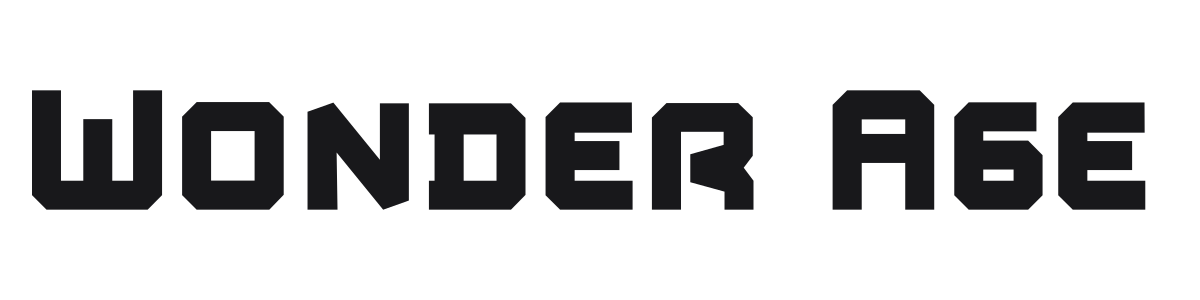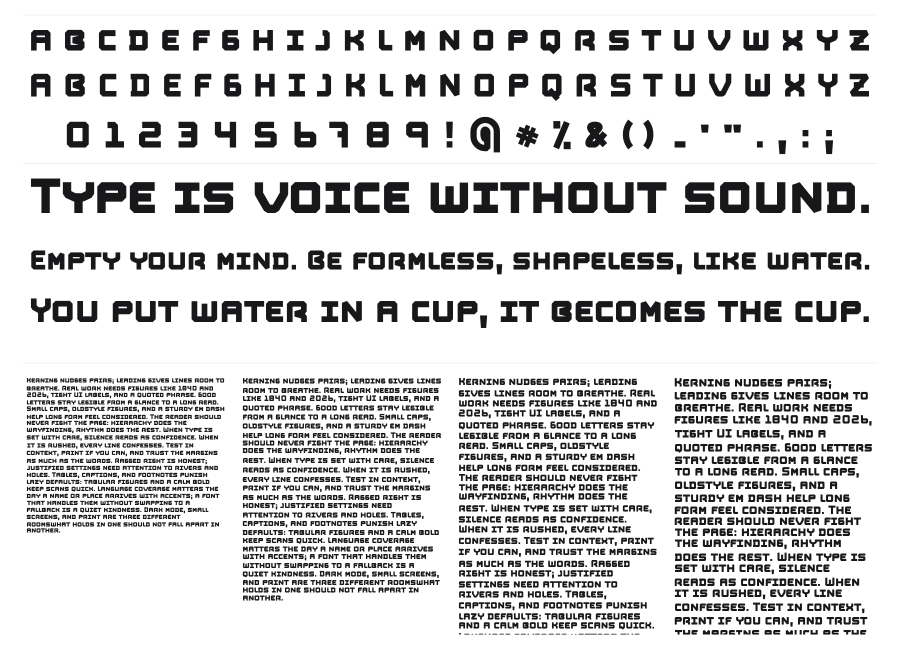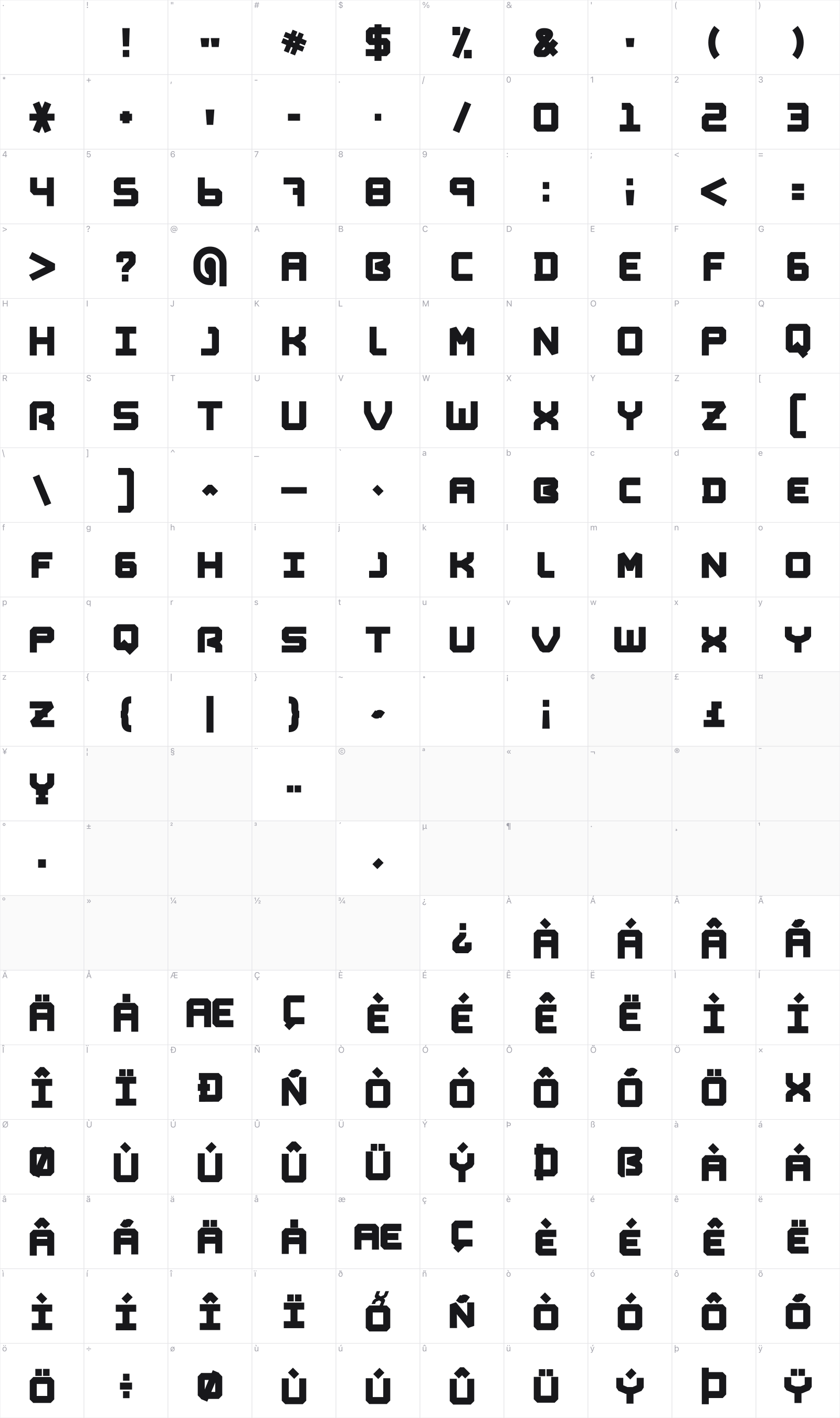
Wonder Age
Wonder Age is a heavy square techno display face built from dense, blocky rectangular modules with clipped corners. The near-zero stroke contrast and tight letter spacing give it a compressed, high-impact presence suited to headlines and logotypes that need a hard-edged, digital feel. It sits comfortably in gaming, sci-fi, and tech-adjacent design contexts.